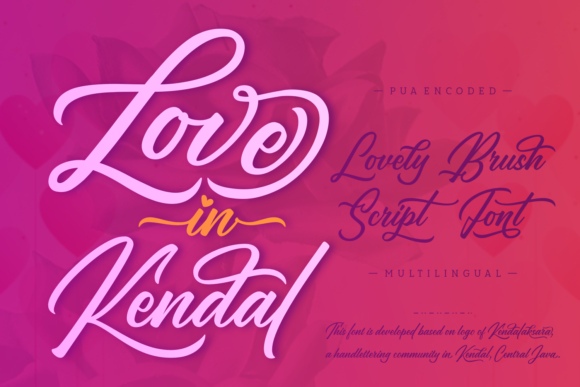
Love in Kendal Font
Love in Kendal Font is perfect for romantic wedding invitations, countryside bed & breakfast branding, vintage love letters, rustic event signage, pastoral romance novels, charming boutique hotels, English countryside tourism, heartwarming greeting cards, romantic anniversary celebrations, and cozy cottage-style restaurants.
What makes Love in Kendal Font so exciting is its extraordinary ability to capture the timeless romance and pastoral beauty of the English countryside through letterforms that seem to whisper sweet poetry and carry the gentle charm of rolling hills and meadowlands. This enchanting typeface draws inspiration from the picturesque Lake District town of Kendal, featuring characters that embody the perfect blend of romantic sentiment and countryside elegance. The font's heartwarming design elements perfectly balance nostalgic charm with contemporary romance, creating a versatile tool that communicates love, tranquility, and authentic English countryside appeal, making it indispensable for projects celebrating romantic connections and pastoral beauty.
Love in Kendal Font comes in multiple font families including Regular, Bold, Light, Script, Italic, Vintage, Romantic, and Countryside variations. Each family member maintains the core romantic characteristics while offering different intimacy levels and stylistic approaches to suit various heartfelt design requirements.
The Love in Kendal Font Free Download provides designers with an exceptional resource for creating emotionally resonant materials that touch hearts and evoke feelings of romance and countryside serenity. This remarkable typeface distinguishes itself through its unique ability to communicate themes of enduring love, natural beauty, and peaceful contentment. Whether you're developing romantic event materials, creating countryside hospitality branding, or designing heartfelt personal stationery, this font ensures your message radiates the warmth and genuine affection that true romance represents.
The tender craftsmanship in Love in Kendal Font makes it particularly suitable for wedding industry professionals and countryside businesses where creating intimate, romantic atmospheres is essential for connecting with couples and travelers seeking authentic romantic experiences. Its gentle letterforms maintain excellent readability while preserving the romantic charm that appeals to audiences seeking meaningful connections and peaceful escapes.
Romance marketing professionals appreciate how Love in Kendal Font transforms ordinary text into heartfelt declarations of love and invitations to romantic countryside adventures. The typeface's tender character set includes special romantic symbols and pastoral elements that enhance the overall loving atmosphere of any romance-focused project.
For creative professionals serving wedding planners, countryside tourism, and romantic lifestyle brands, Love in Kendal Font serves as the perfect foundation for establishing memorable visual identities that capture the essential qualities of enduring love, pastoral tranquility, and romantic countryside charm that create unforgettable romantic experiences and lasting memories.